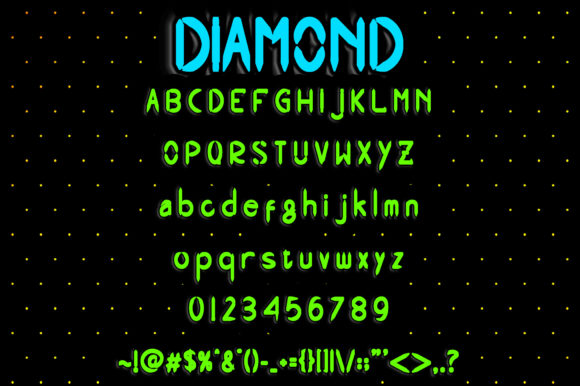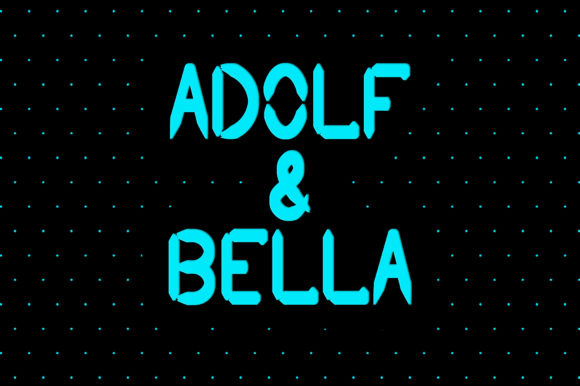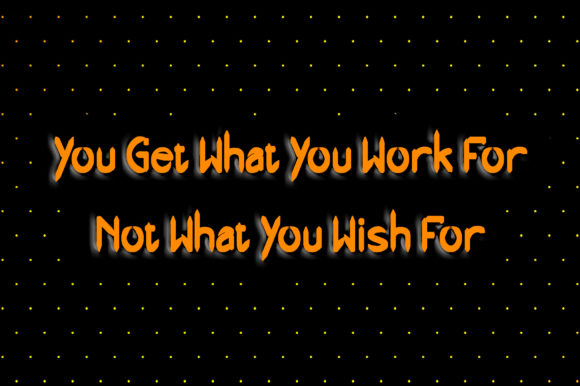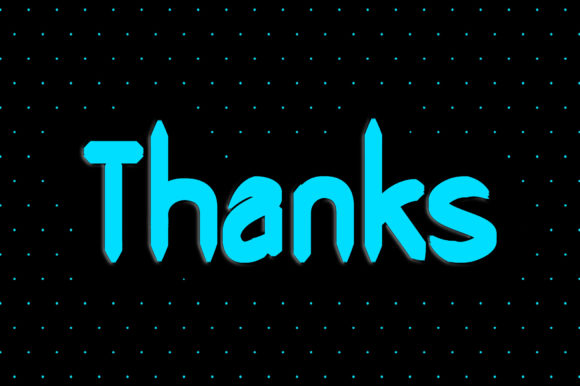
Diamond Font: Elevate Your Designs with a Cool, Casual, and Adaptable Display Font
In the world of typography, fonts play a crucial role in bringing creative ideas to life. For designers, crafters, and DIY enthusiasts, finding the perfect font can be a daunting task. However, if you’re looking for a font that can add a touch of elegance and sophistication to your projects, look no further than the Diamond Font. This cool, casual, and adaptable display font is perfect for a wide range of creative endeavors, from Instagram posts to calligraphy scripts for DIY projects.
What is Diamond Font?
Diamond Font is a stylish and versatile display font that can add a unique touch to any design project. Its cool and casual vibe makes it perfect for creative types who want to add a personal touch to their work. Whether you’re designing a logo, creating social media graphics, or working on a DIY project, Diamond Font is an excellent choice.
Key Features of Diamond Font
- Cool and Casual Vibe: Diamond Font has a relaxed and informal feel that’s perfect for creative projects that require a personal touch.
- Adaptable: This font is highly versatile and can be used for a wide range of design projects, from digital graphics to print materials.
- Display Font: Diamond Font is designed to make a statement, making it perfect for headlines, titles, and other display text.
- Easy to Read: Despite its stylish and decorative nature, Diamond Font is easy to read, making it perfect for body text and captions.
Uses of Diamond Font
Diamond Font is an incredibly versatile font that can be used for a wide range of creative projects. Here are some ideas to get you started:
- Instagram Graphics: Add a touch of elegance to your Instagram posts with Diamond Font. Use it for captions, quotes, or even as a decorative element.
- Calligraphy Scripts: Diamond Font is perfect for calligraphy scripts, making it a great choice for DIY projects, such as hand-lettering and decorative writing.
- Logo Design: Use Diamond Font to create a unique and memorable logo for your brand or business.
- Social Media Graphics: Create stunning social media graphics with Diamond Font, including Facebook posts, Twitter headers, and more.
- DIY Projects: Add a personal touch to your DIY projects, such as handmade cards, gift tags, and other paper crafts.
Why Choose Diamond Font?
With so many fonts available, why choose Diamond Font? Here are just a few reasons:
- Unique Style: Diamond Font has a unique and stylish design that will set your projects apart from the rest.
- High-Quality: Diamond Font is a high-quality font that’s designed to produce crisp and clear text, even at small sizes.
- Versatility: This font is incredibly versatile and can be used for a wide range of creative projects.
In conclusion, Diamond Font is a cool, casual, and adaptable display font that’s perfect for designers, crafters, and DIY enthusiasts. Its unique style, ease of use, and high-quality design make it an excellent choice for a wide range of creative projects. Whether you’re looking for fonts for Instagram or calligraphy scripts for DIY projects, Diamond Font is sure to turn your creative ideas into true pieces of art.